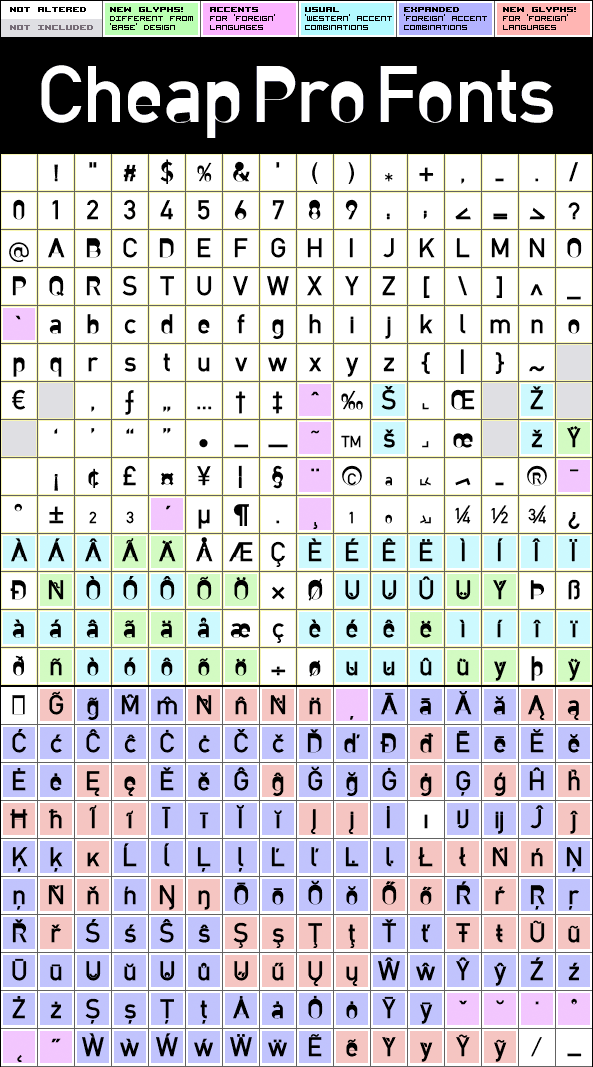
DINfun Pro Drooped
DINfun Pro Drooped by Roger S. Nelsson
379 glyphs!
Another grunge treatment to my variant of the classic DIN 1451 Mittelschrift: the shapes have been drooped as if they were vinyl letters sliding down on a lightbox melting the glue on the adhesive. Inspired by unfortunate backlit signs regularly seen... ;)
DINfun Pro Drooped is a professionally reworked font that contains an extended character set for setting text in 65 languages requiring more than the basic A-Z!